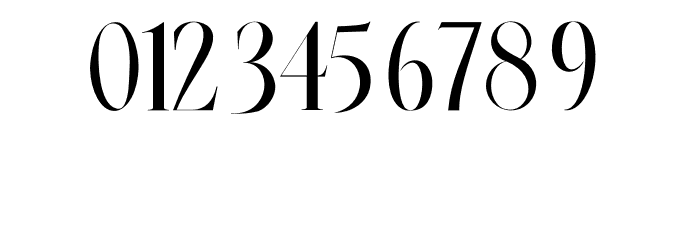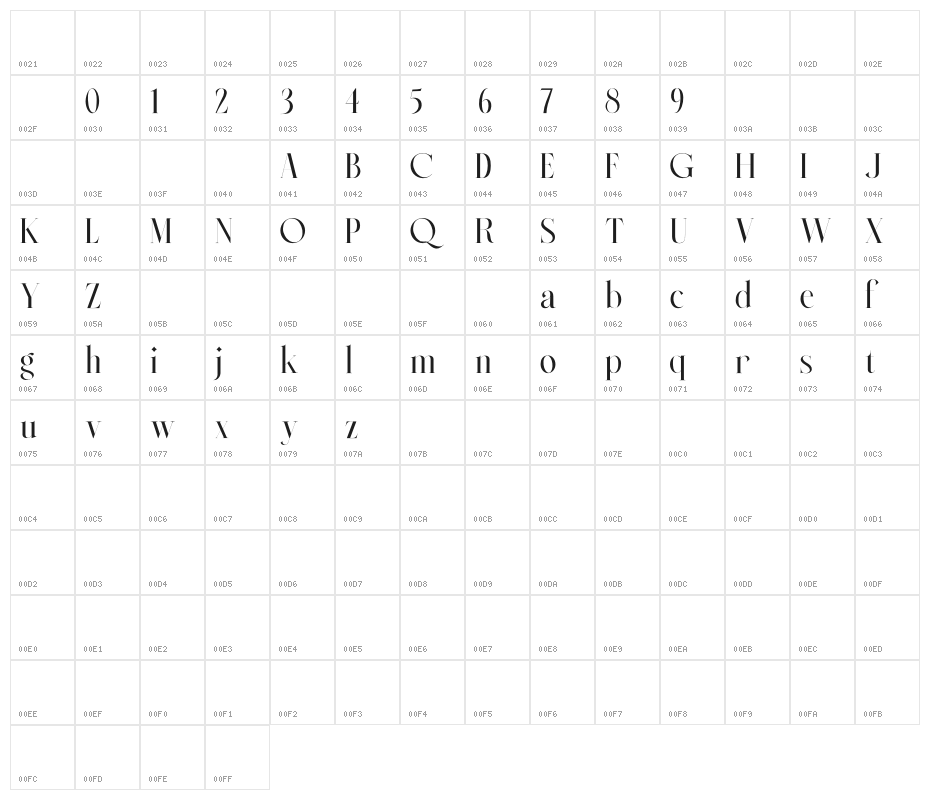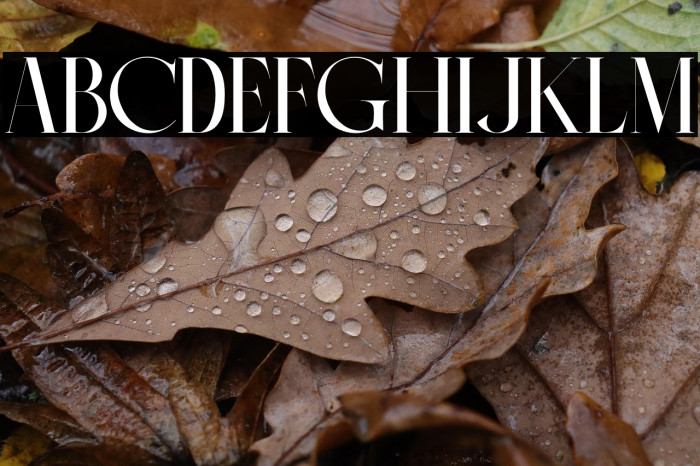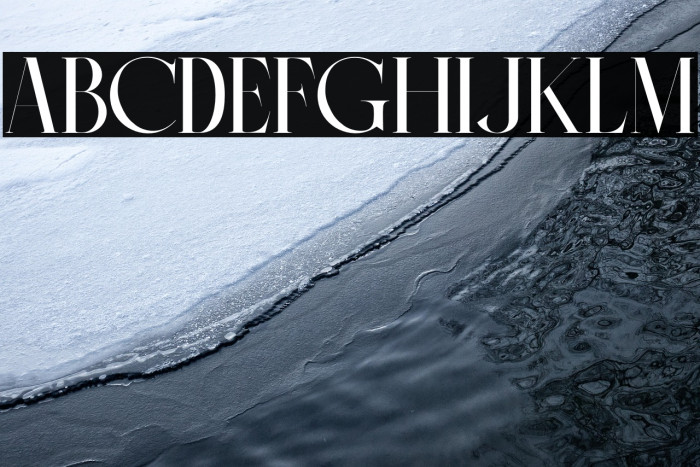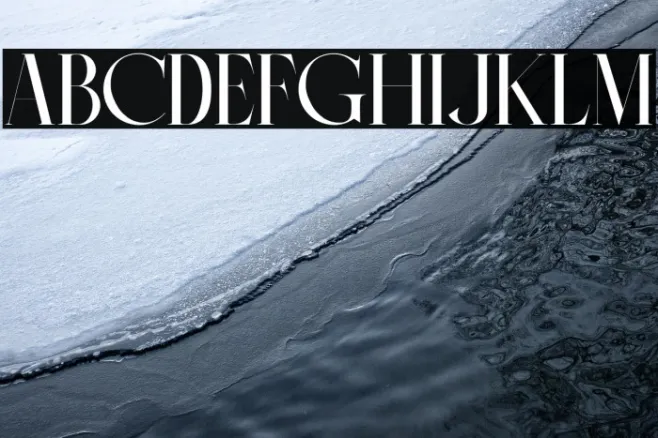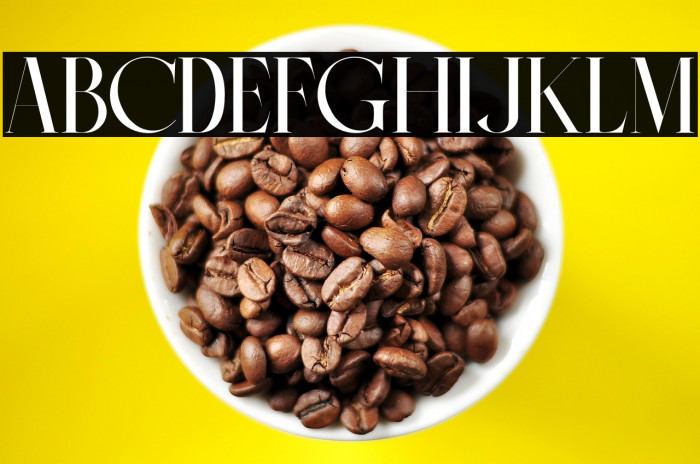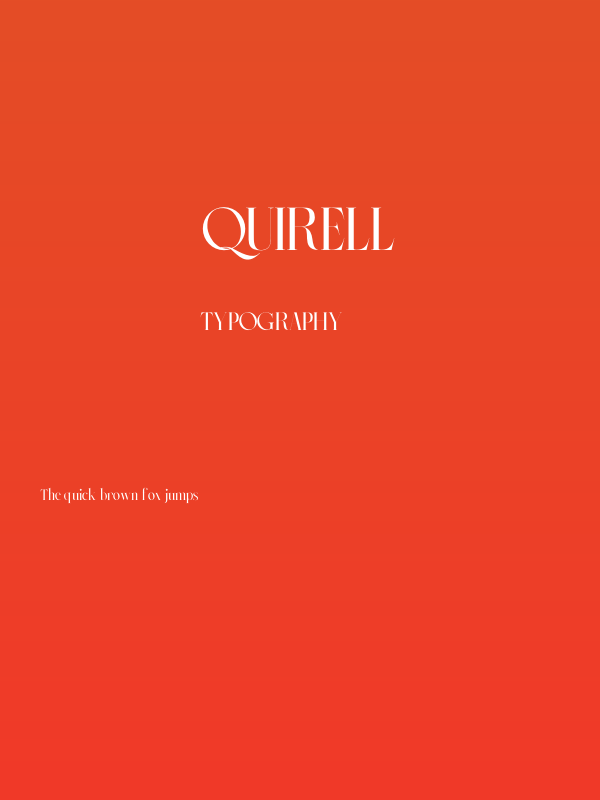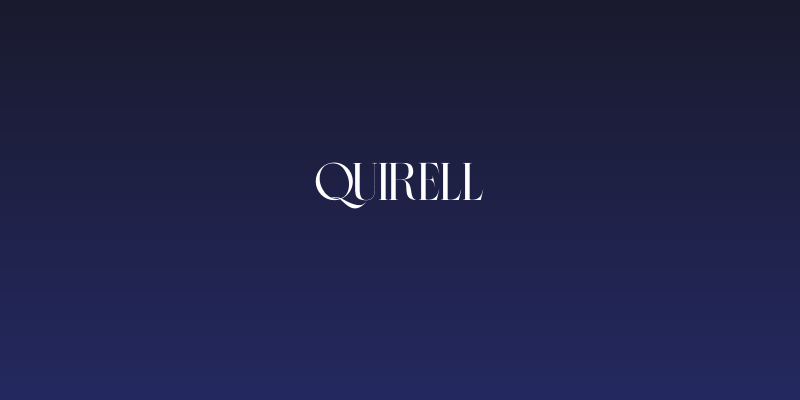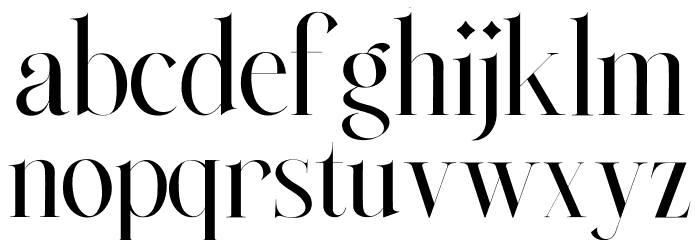
Quirell Font
Quirell Description
This elegant serif font features high contrast between thick and thin strokes, giving it a sophisticated and refined appearance. The uppercase letters are tall and stately, with sharp serifs that add a touch of formality. The lowercase letters maintain a consistent style, with smooth curves and a graceful flow. The numerals are designed with the same attention to detail, ensuring readability and aesthetic appeal. This font is perfect for projects that require a classic and timeless look, such as luxury branding, editorial design, and formal invitations.
| Proposed Projects | Ideal for luxury branding, editorial design, formal invitations, and high-end packaging. |